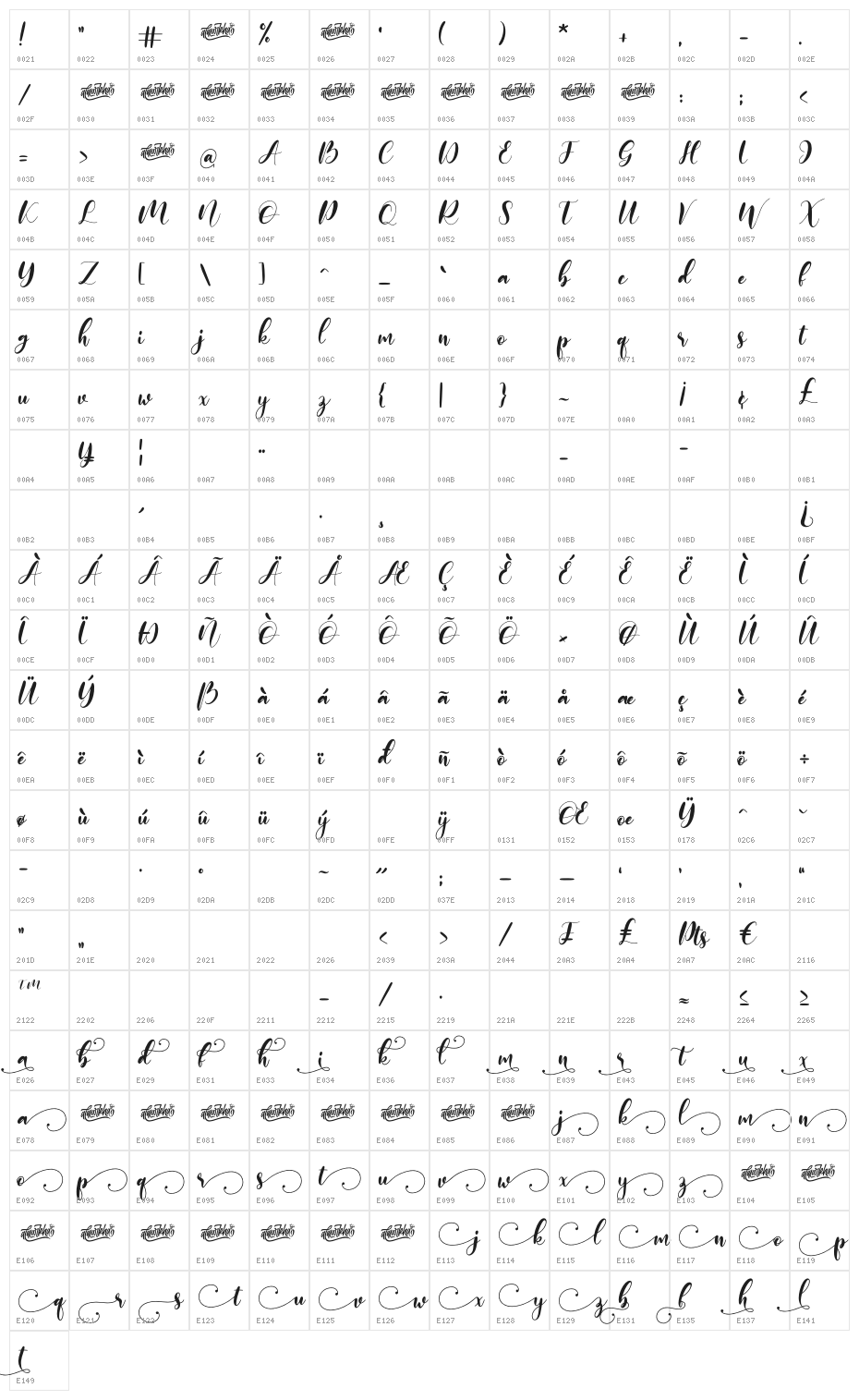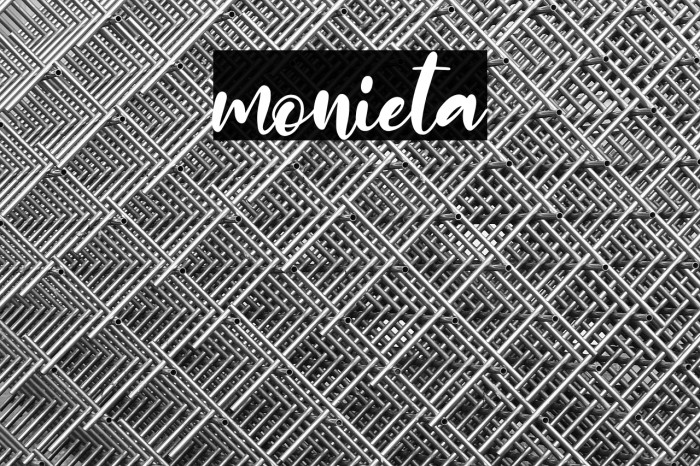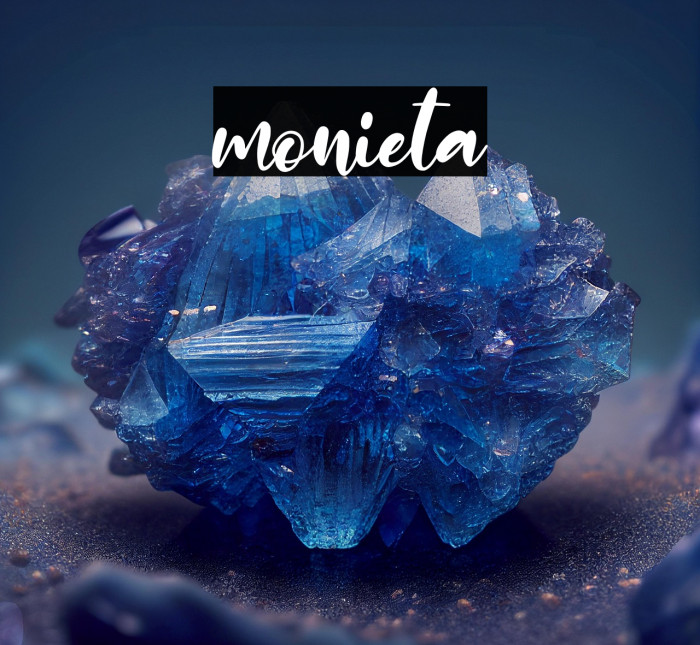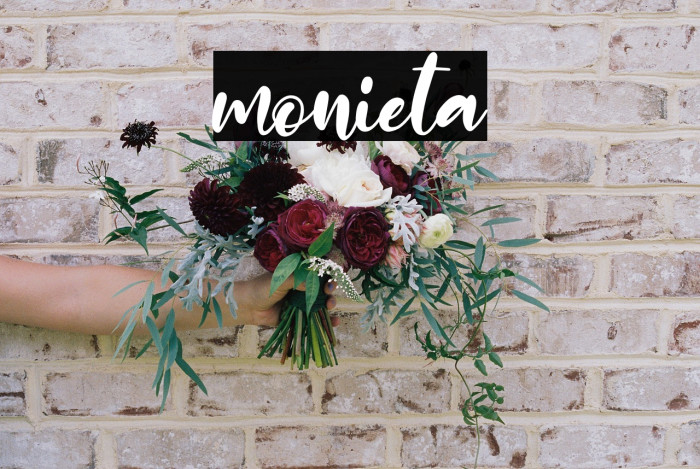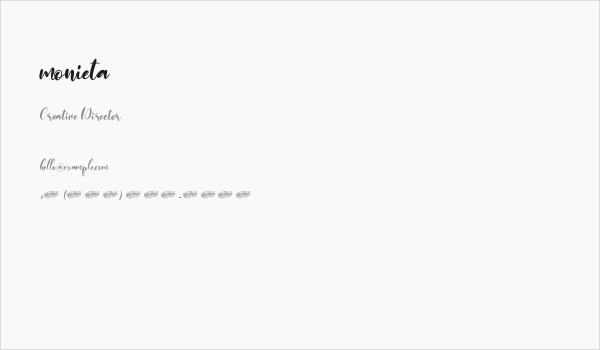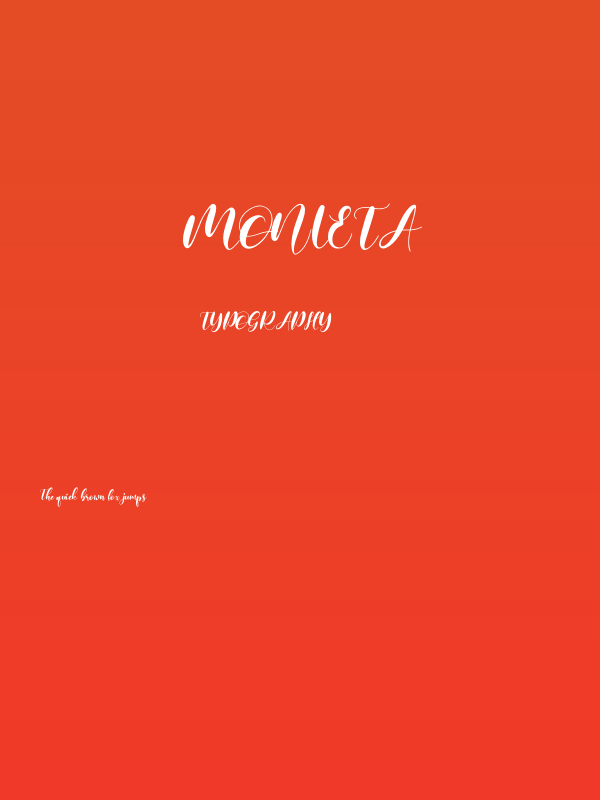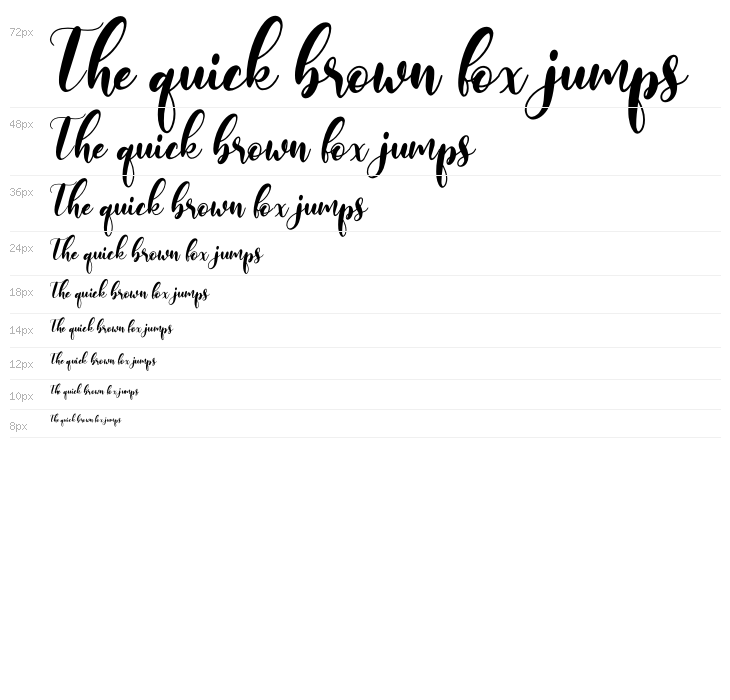
monieta Font
monieta Description
This font exudes a dynamic and fluid style, characterized by its elegant and flowing script. The letters are interconnected with smooth, sweeping curves that give it a sense of motion and grace. The uppercase letters are particularly ornate, with exaggerated loops and flourishes that add a touch of sophistication. The lowercase letters maintain a consistent style, offering a harmonious balance with the uppercase. The numbers and special characters are designed to match the overall aesthetic, ensuring a cohesive look. This font is ideal for projects that require a personal and artistic touch, such as invitations, branding, and decorative designs.
| Proposed Projects | Ideal for wedding invitations, branding, logos, and decorative designs. |